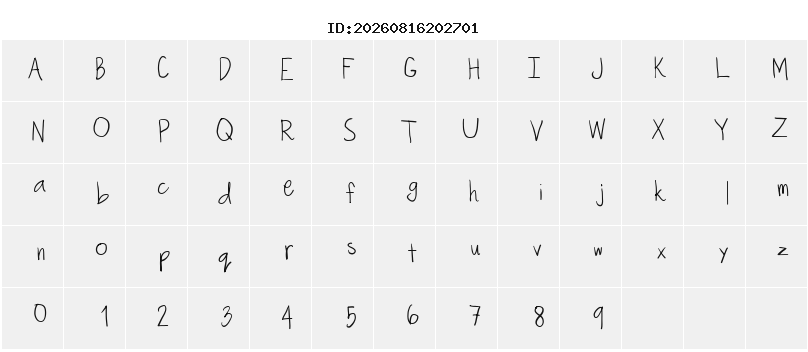
• Font Name: Spaced Out
• Full Font Name: Spaced Out
• Designer: f.red
About Spaced Out.ttf
Spaced Out.ttf is a modern, elegant sans-serif font designed for ultimate readability and visual harmony. Perfect for branding, headlines, web design, and print materials.